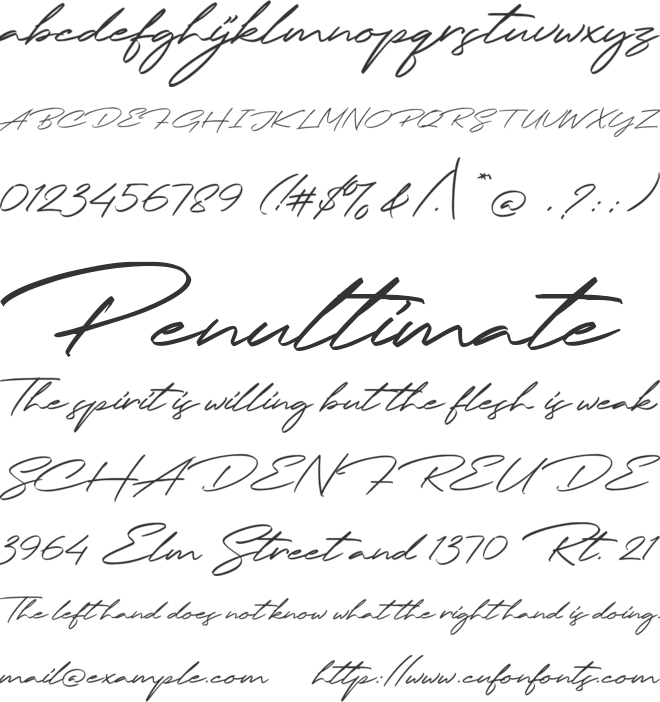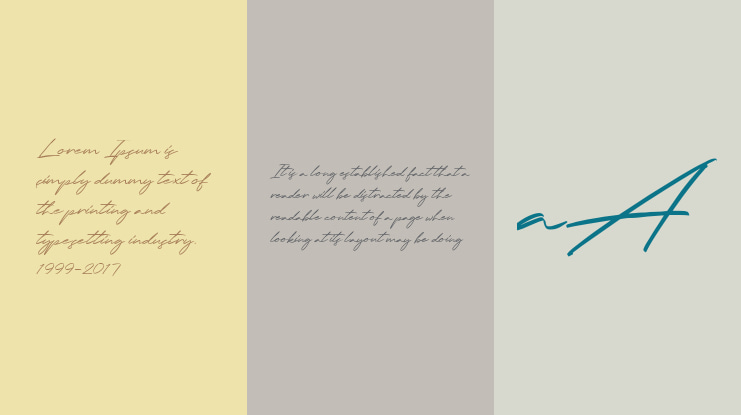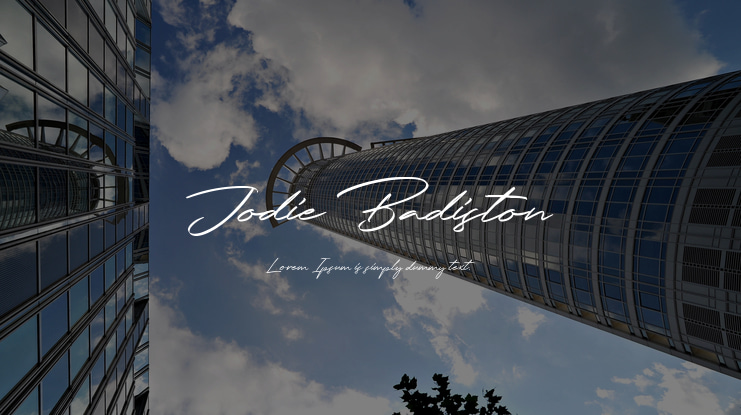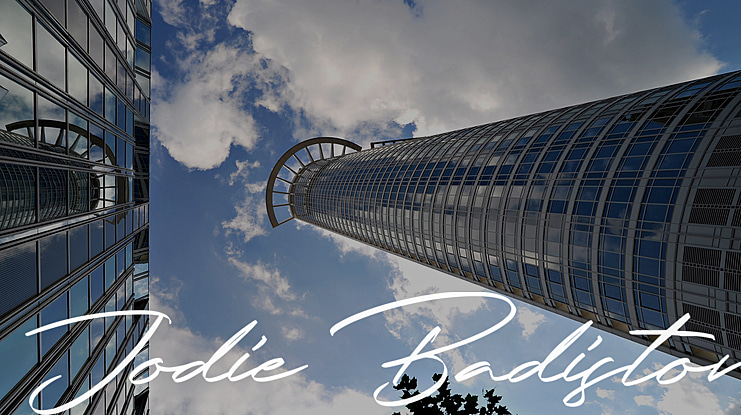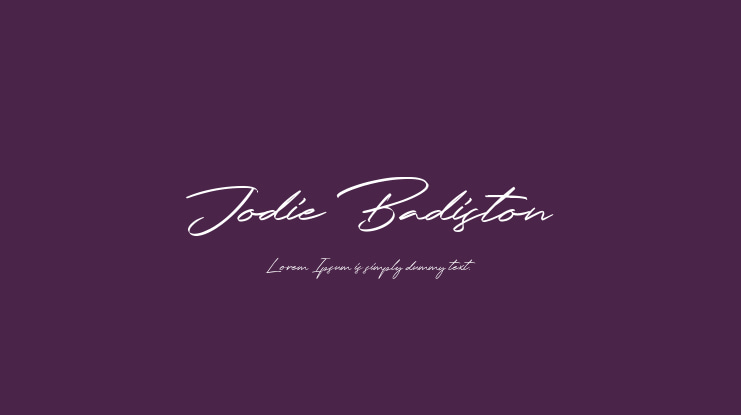
Jodie Badiston Font
Jodie Badiston Script is a unique, cool and modern handwritten font. It's hand look style makes it perfect for use in all your design projects be it logos, signatures, labels, packaging design, blog headlines